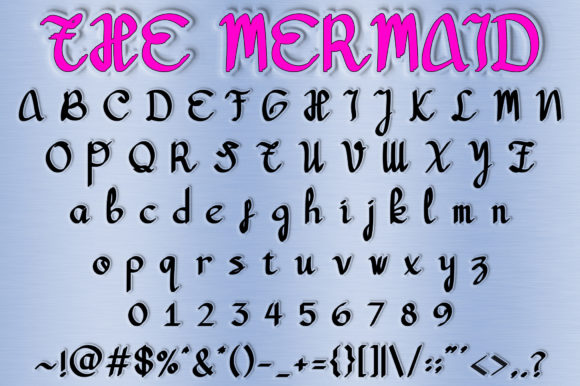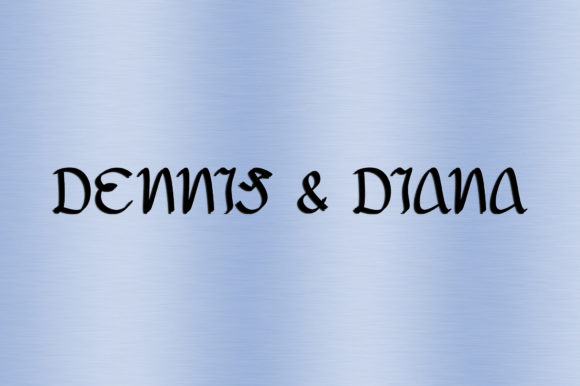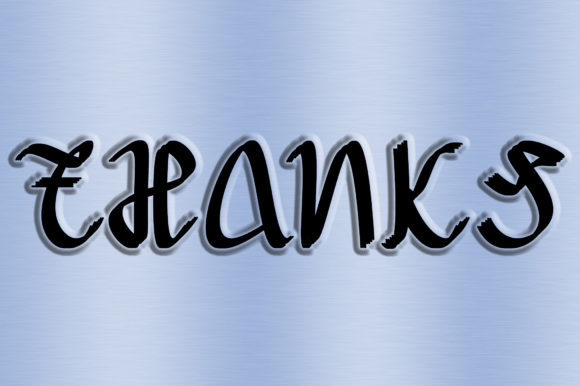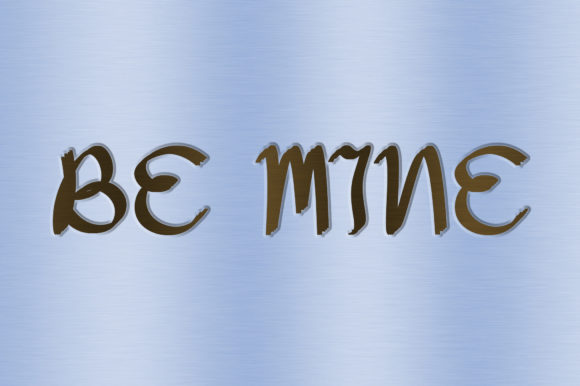
About The Mermaid Font
The Mermaid is a sweet and friendly handwritten font. Its natural and unique style makes it incredibly fitting to a large pool of designs. The only limit is your imagination!